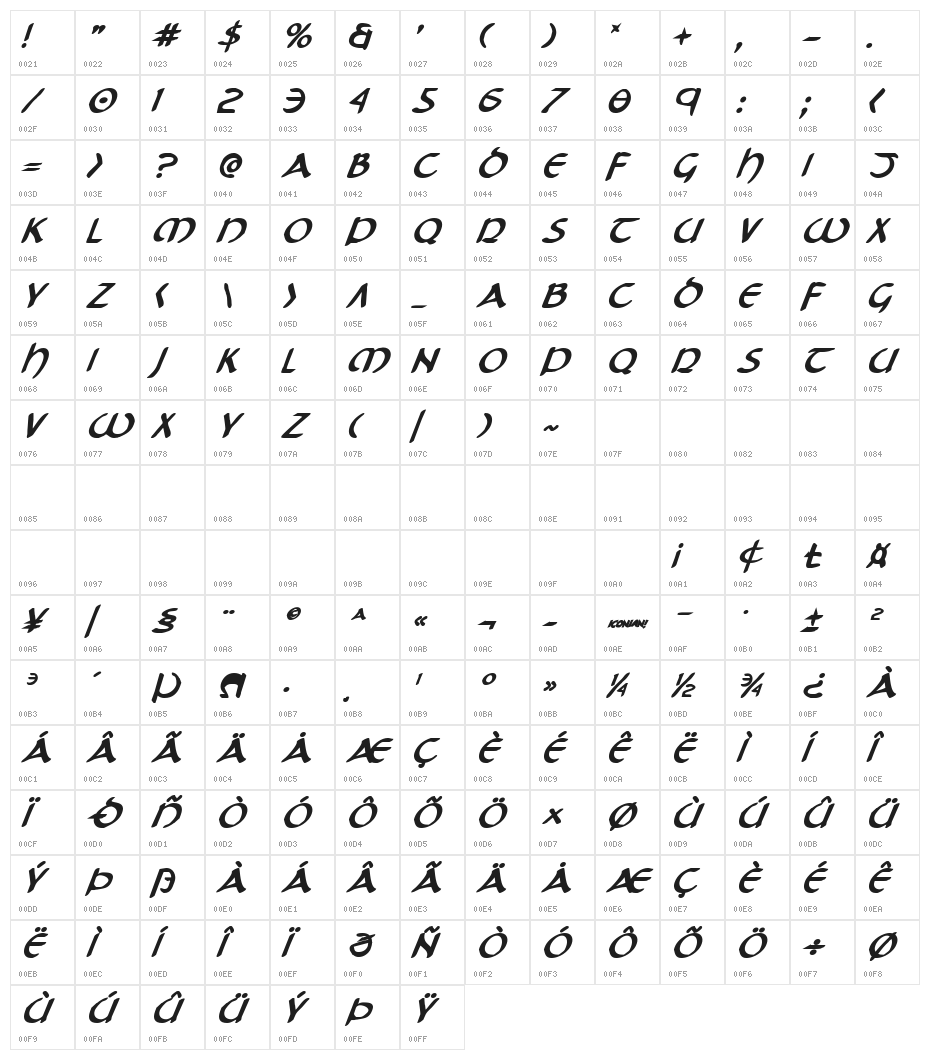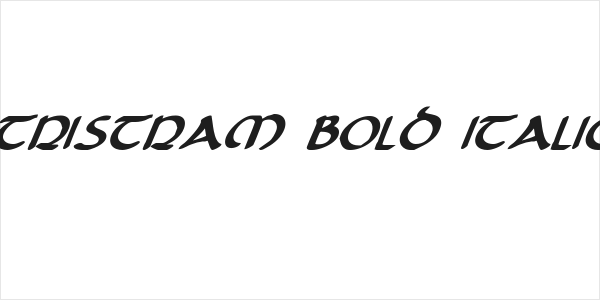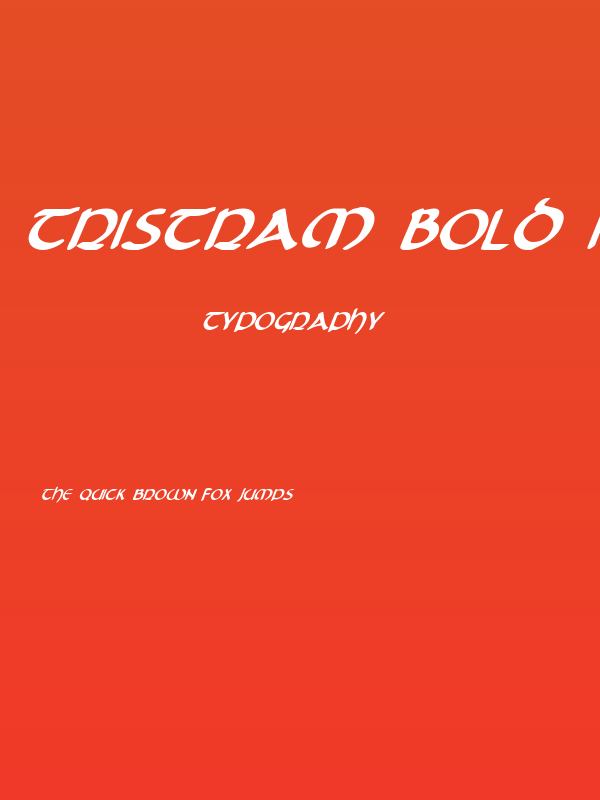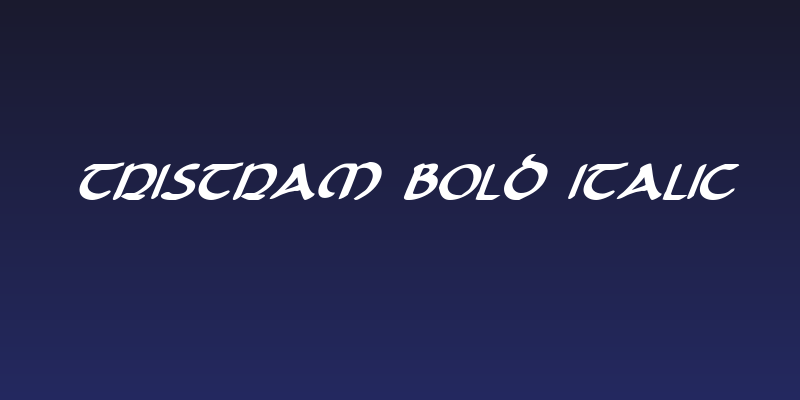
Tristram Bold Italic Font
Tristram Bold Italic Description
This font features a bold and italic style with a dynamic and flowing appearance. The characters are slightly slanted, giving it a sense of movement and elegance. The strokes are thick and consistent, providing a strong visual impact. The uppercase and lowercase letters maintain a cohesive style, with rounded edges and smooth curves. The numbers and special characters are designed to match the overall aesthetic, ensuring uniformity across all glyphs. This font is suitable for projects that require a bold and expressive typeface.
| Proposed Projects | Ideal for branding, posters, headlines, and any design needing a bold, expressive touch. |